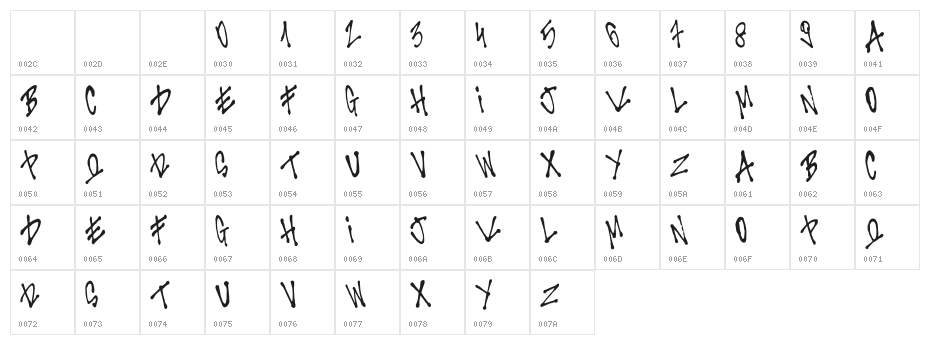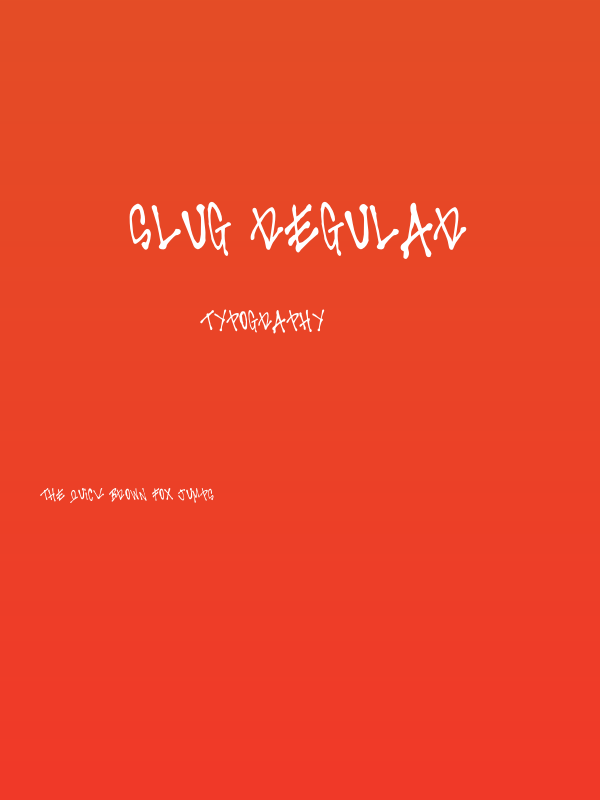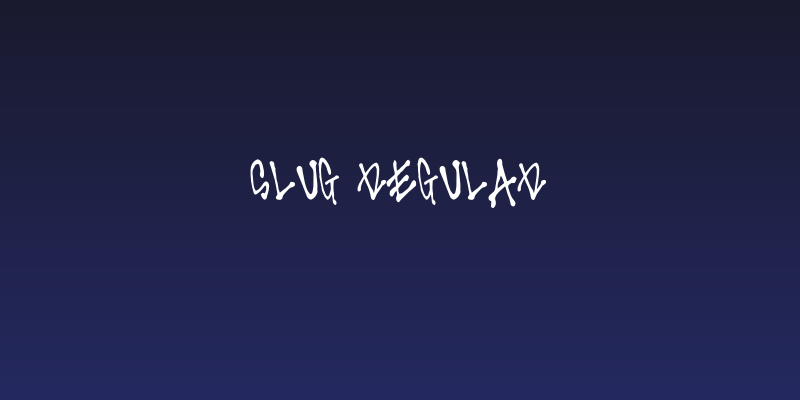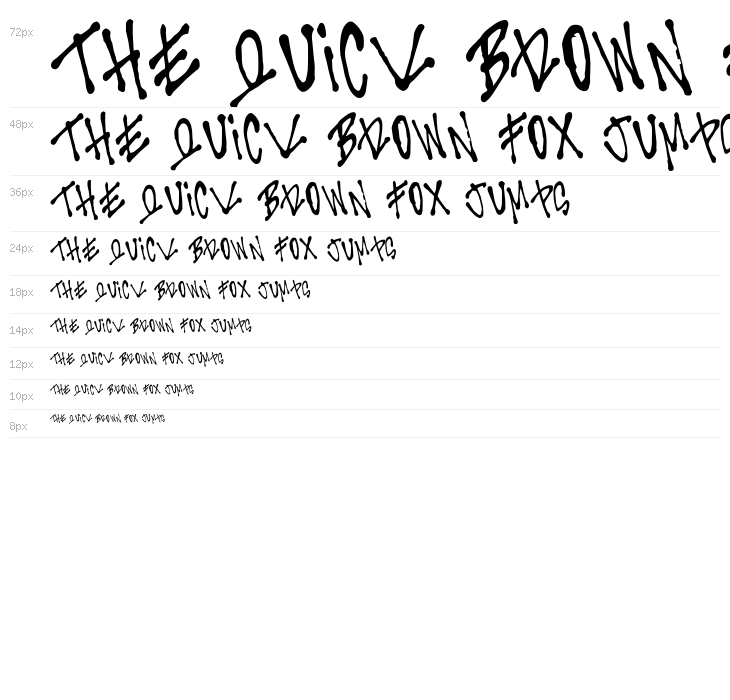
This font exhibits a dynamic and energetic handwritten style, characterized by its bold and expressive strokes. The letters are slightly slanted, giving a sense of movement and fluidity. Each character is uniquely crafted, with varying stroke thickness that adds to the font's lively appearance. The uppercase and lowercase letters maintain a consistent style, while the numbers and special characters seamlessly integrate into the overall design. This font's informal and playful nature makes it ideal for creative projects that require a personal touch.
Use CaseLogos, Headlines, Creative projects
Proposed ProjectsIdeal for greeting cards, personal branding, creative posters, and social media graphics.